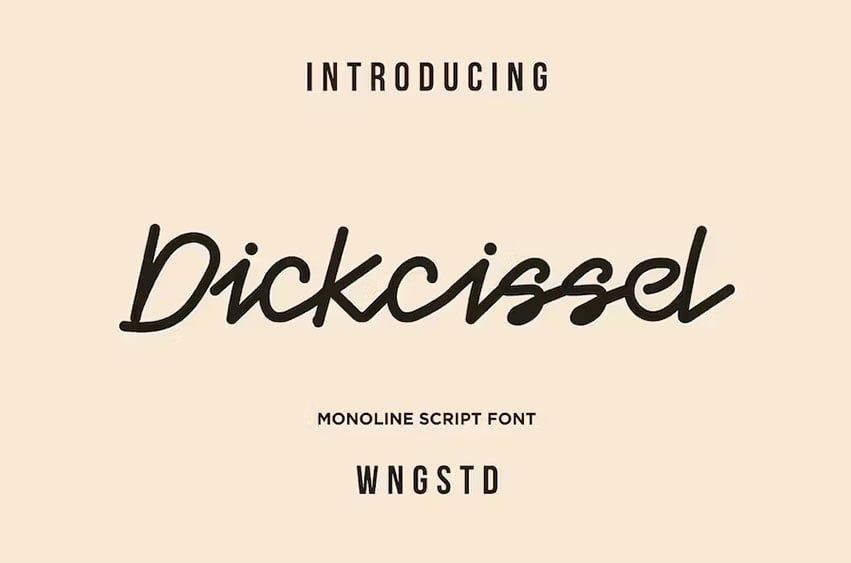
Dickcissel Font is a vintage-styled, elegant handwritten font. Expertly designed to make your creation look out of this world, this font will look gorgeous on a variety of ideas.